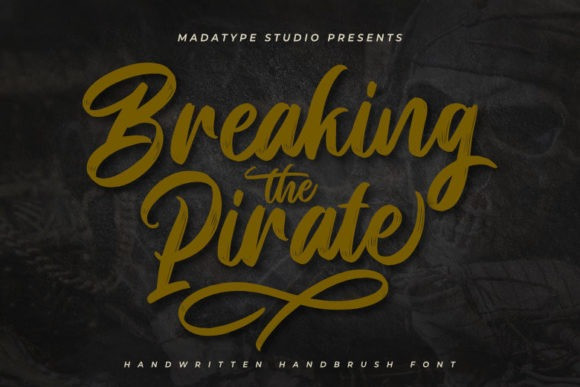
Breaking Pirate Font
Breaking Pirate Brush Font is a chic, brushed script font that emanates sophistication and elegance. Its stylish alternates and ligatures make this font the perfect match for any project.